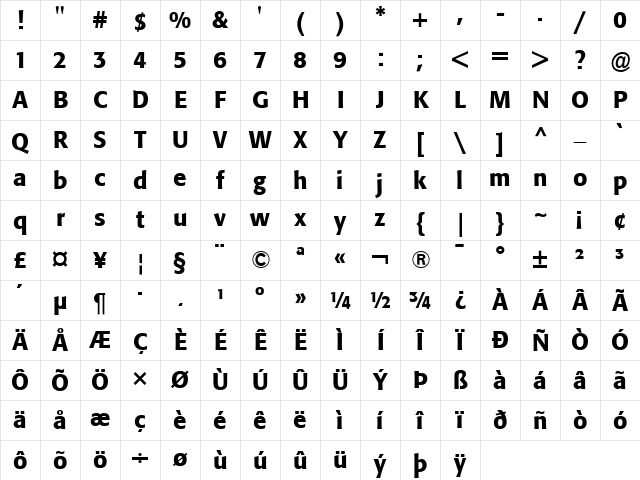
Formata Bold
Design Context for Formata
Formata is a composed and adaptable typeface that performs quietly and consistently across a wide range of design contexts. Its bold stroke weight gives it real presence on the page.